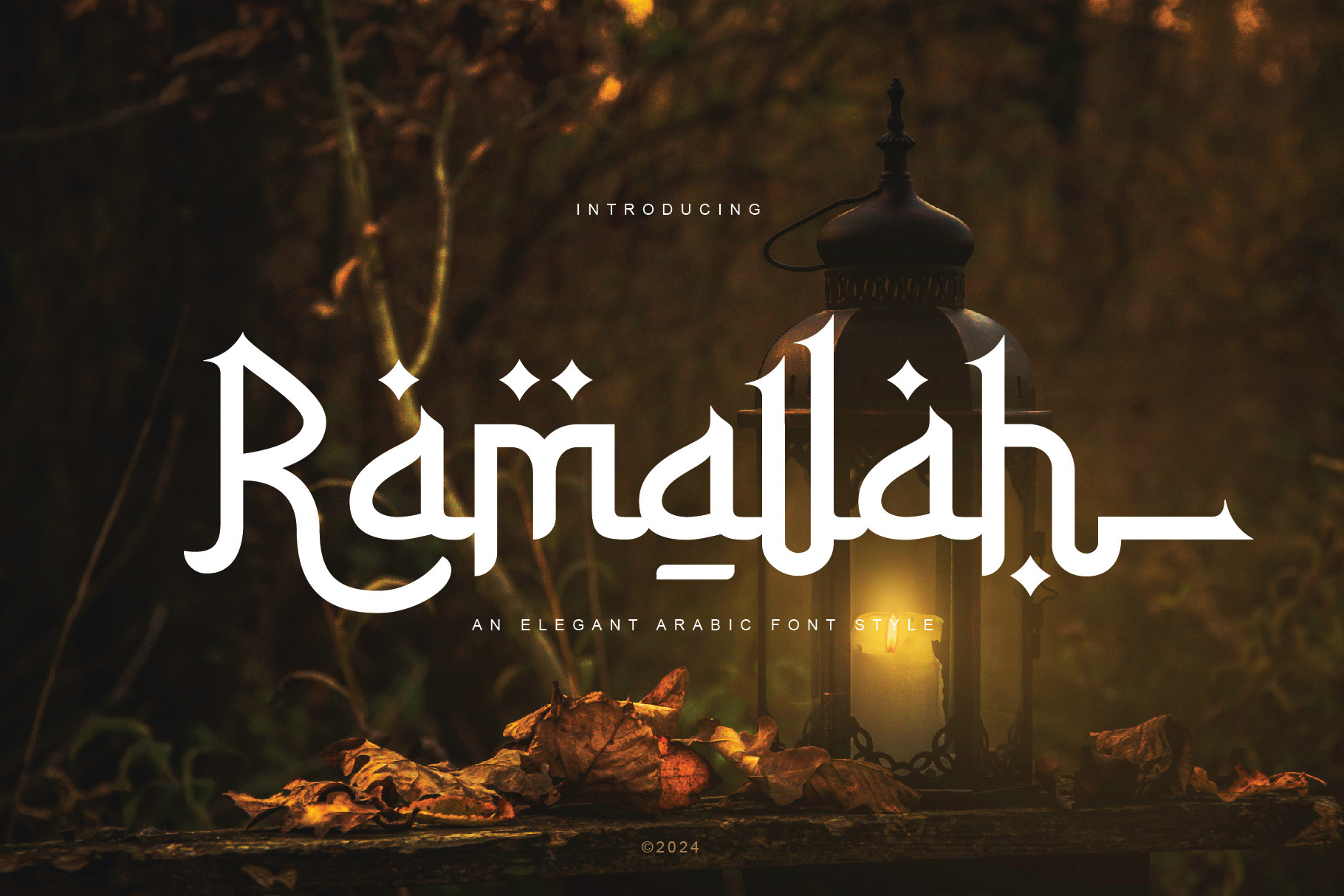
Ramallah Arabic Font Style
Hey everybody! Again introducing our newest product, namely Ramallah. This is a font with an Arabic display type font. This font is equipped with various features such as: Stylistic alternates, ligatures, swash and ss01. The various features provided give you the freedom to create your best work.
This font is suitable for you to use for several jobs such as brands, product logos, covers, advertisements, banners and holiday greeting cards.